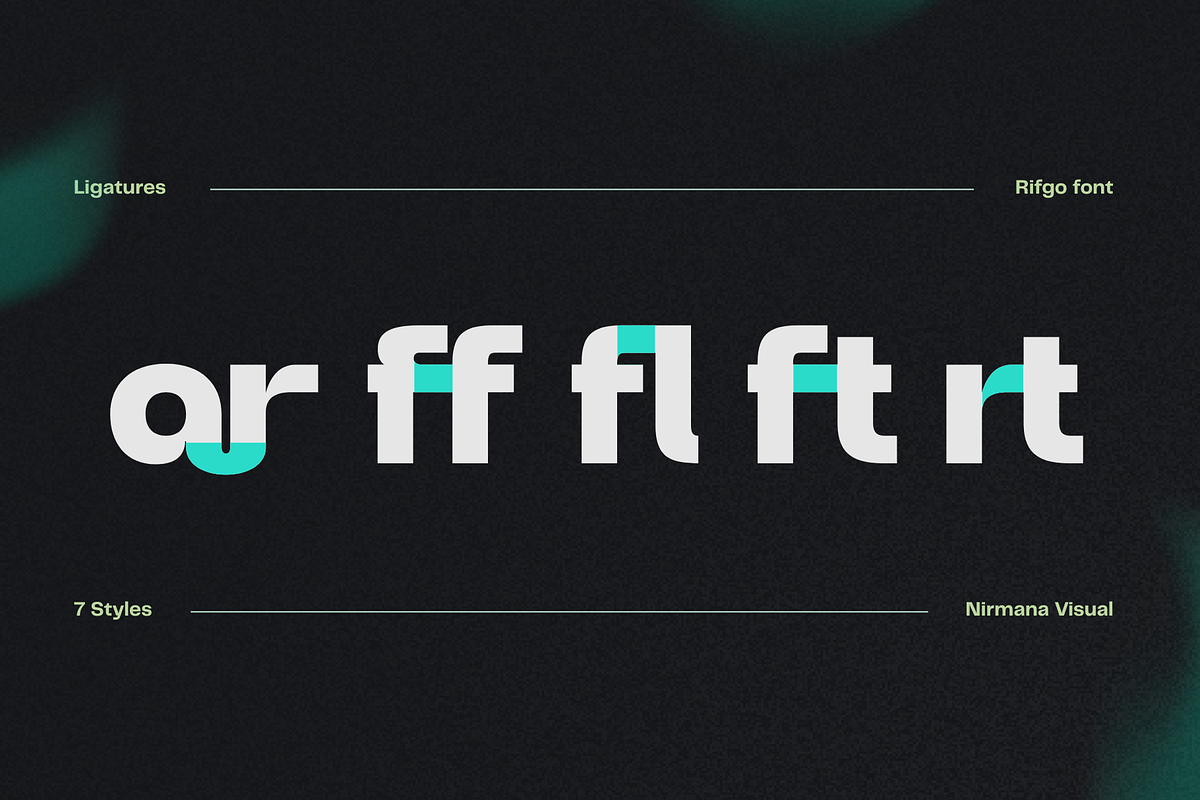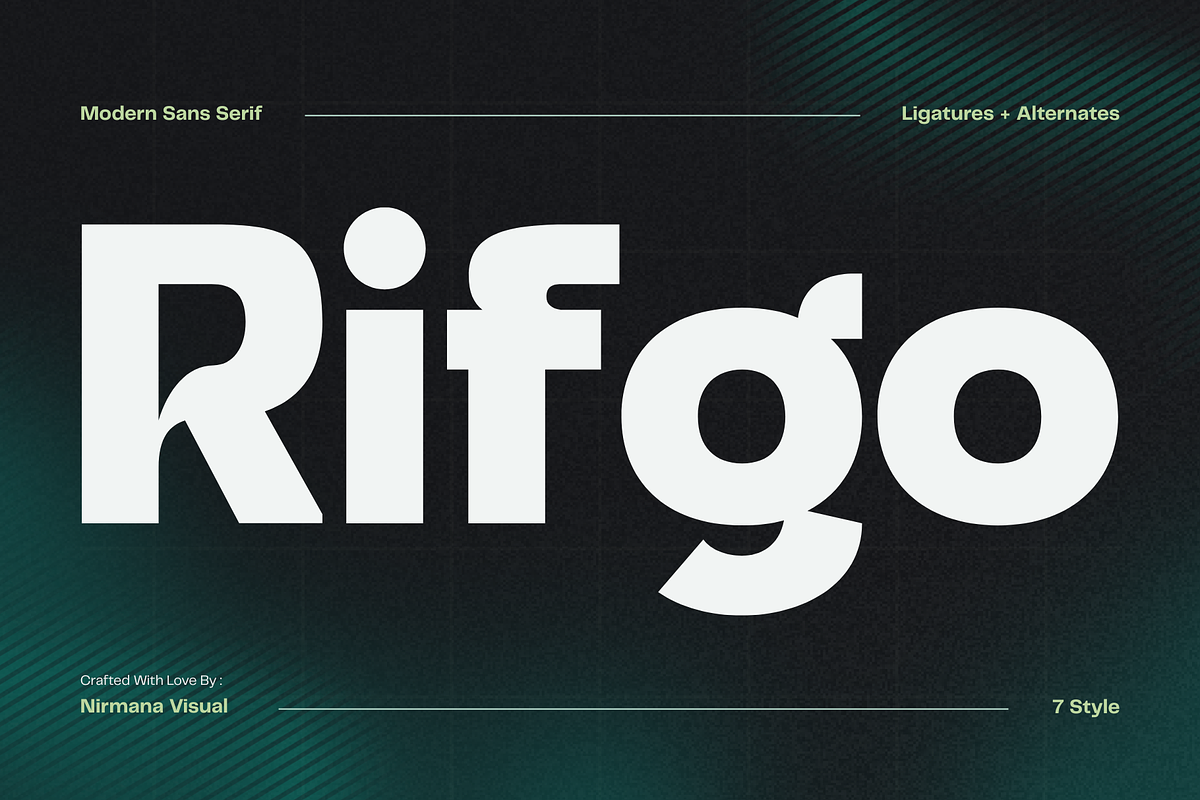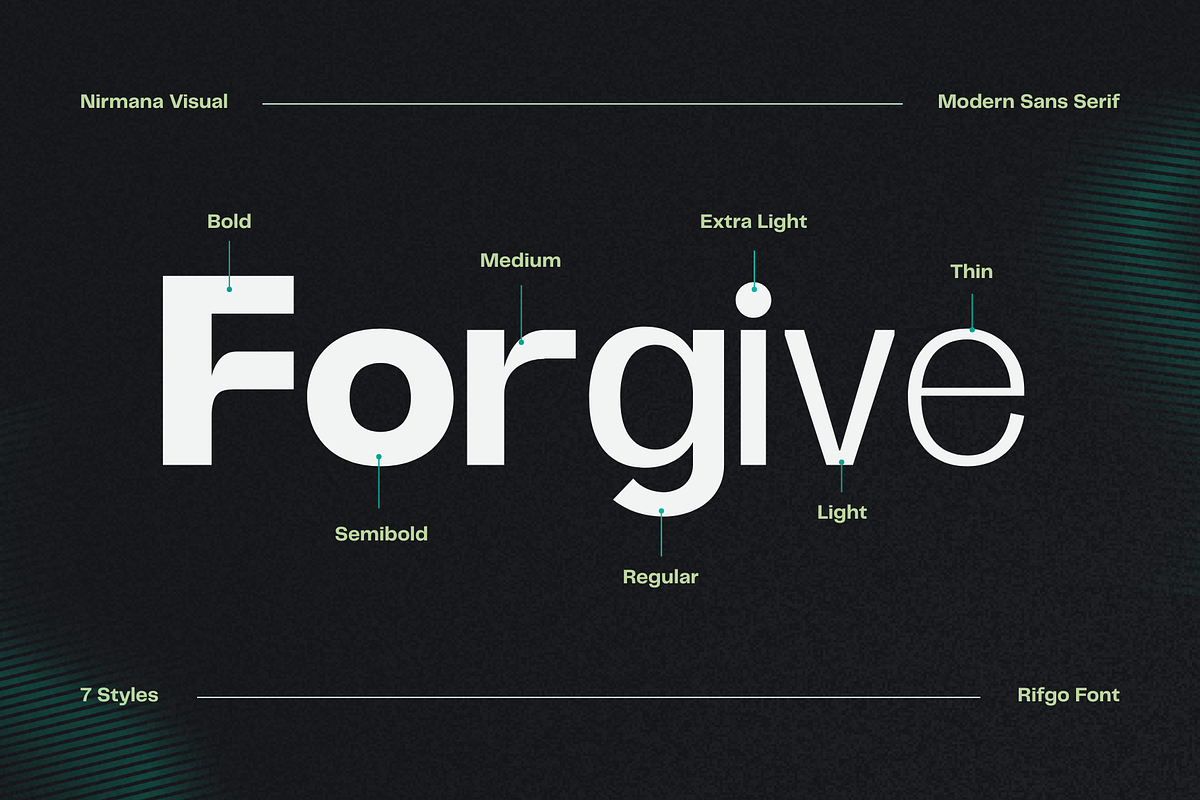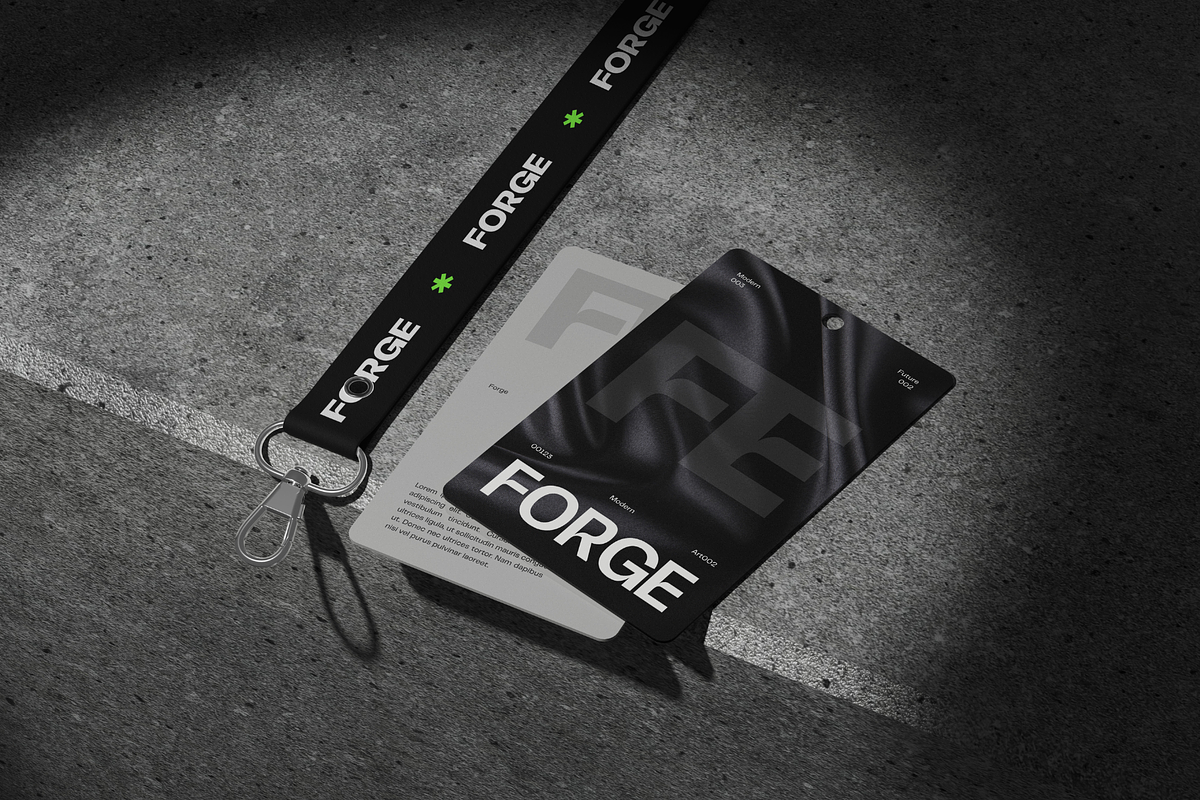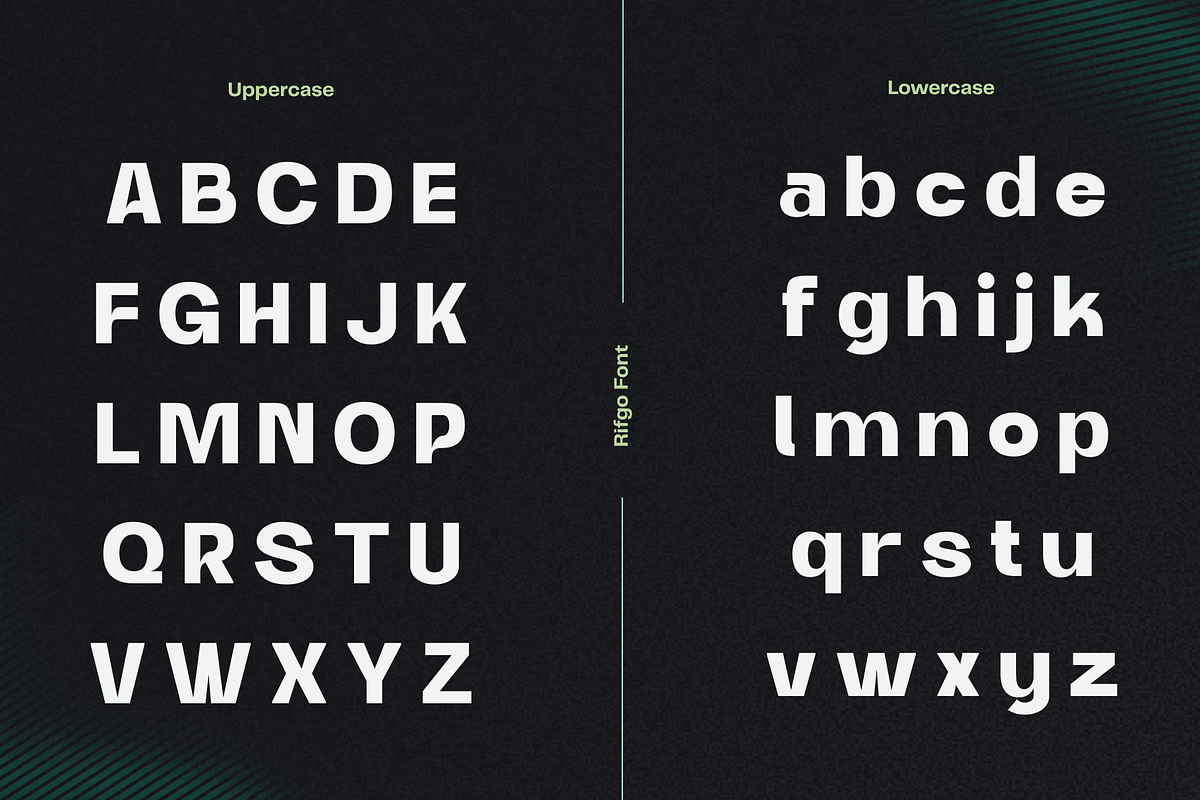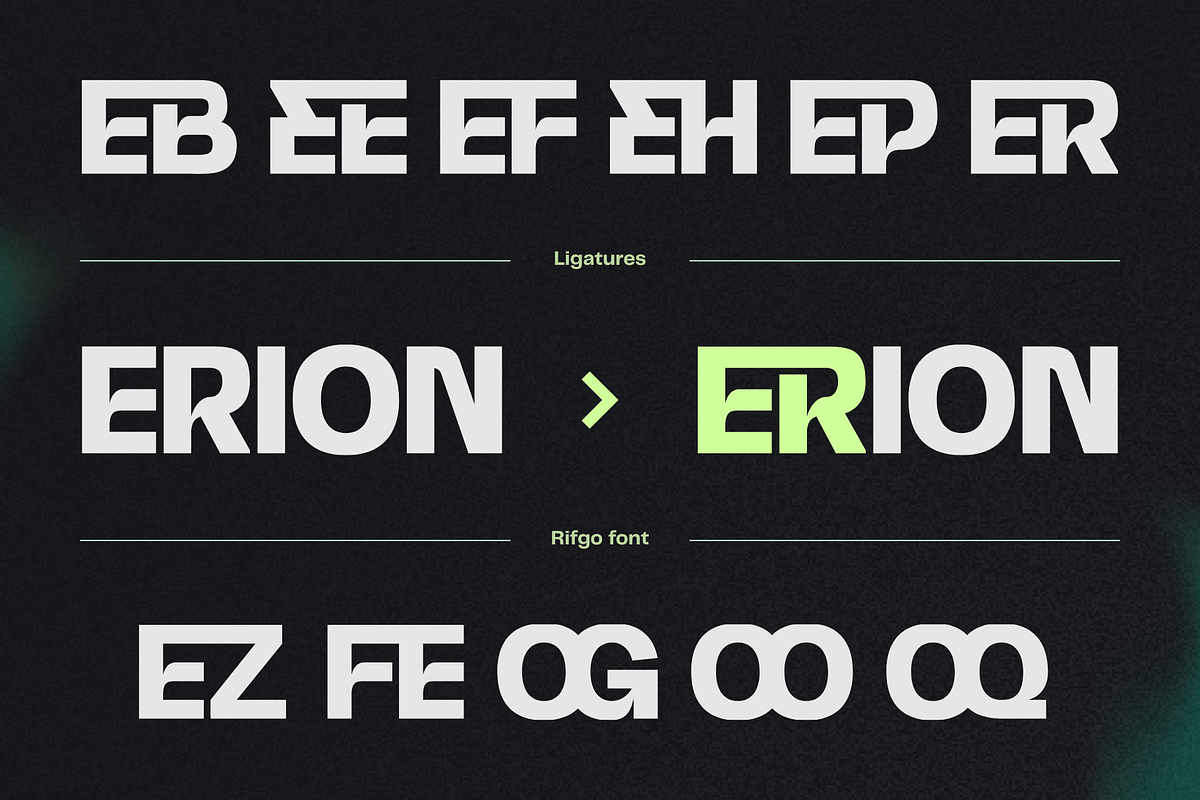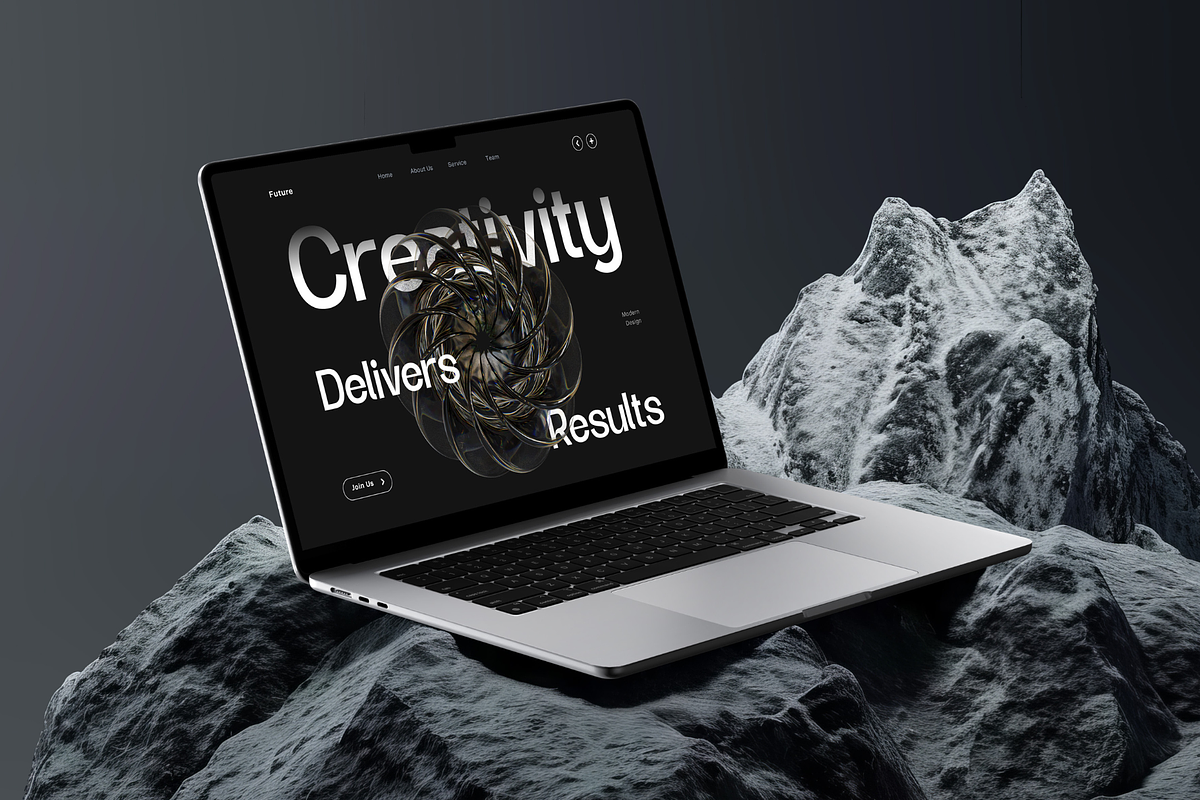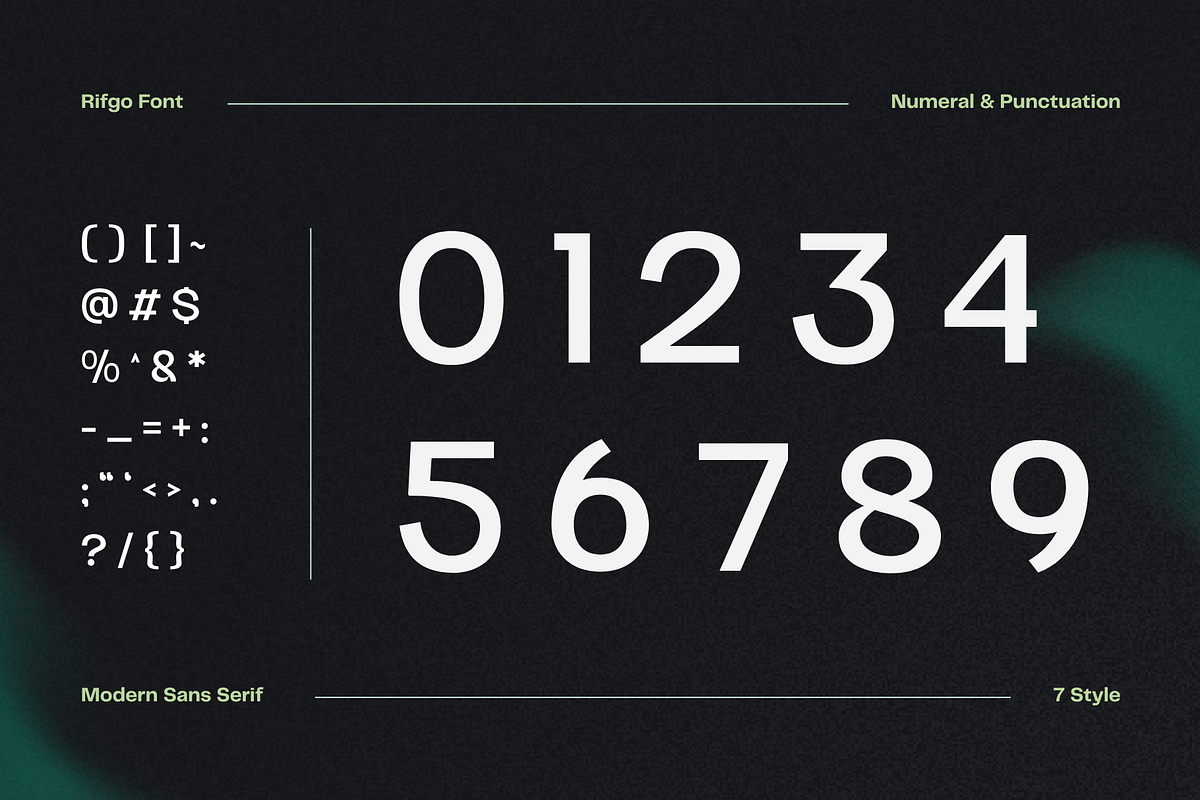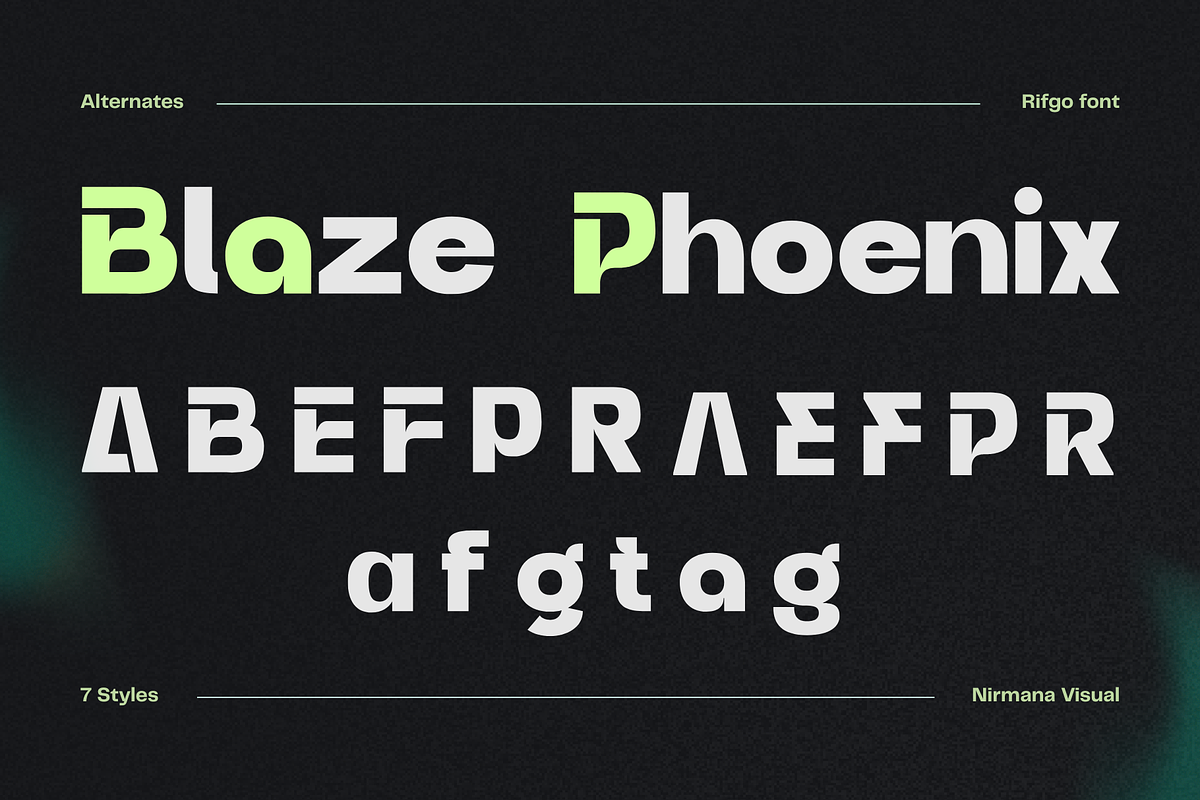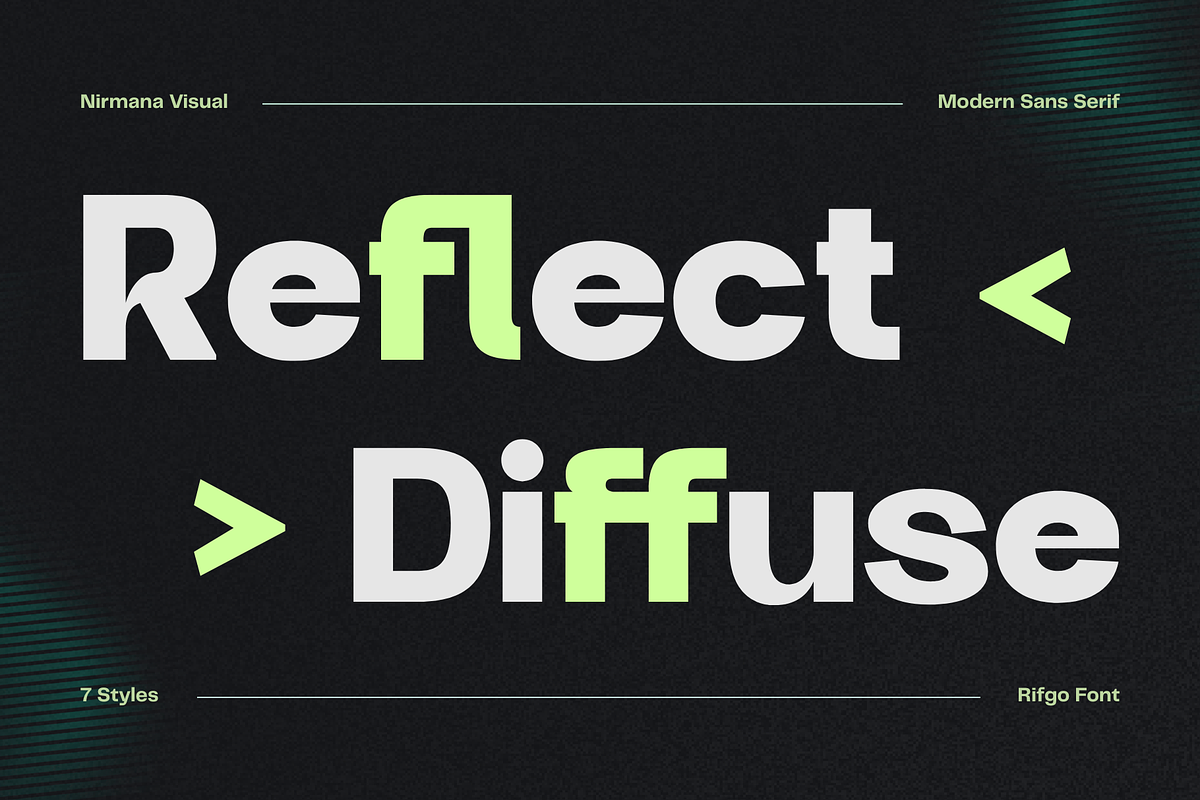
Modern Family Sans Serif - Rifgo
Rifgo offers beautiful typographic harmony for a diversity of design projects, including logos & branding, social media posts, advertisements & product designs.
What you get : Seven Font Styles From Thin until Bold